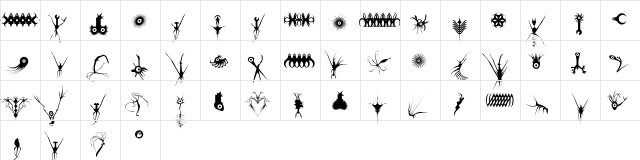
LovingTheAlien Regular
Design Context for LovingTheAlien Typeface
LovingTheAlien is a composed and adaptable typeface that performs quietly and consistently across a wide range of design contexts.